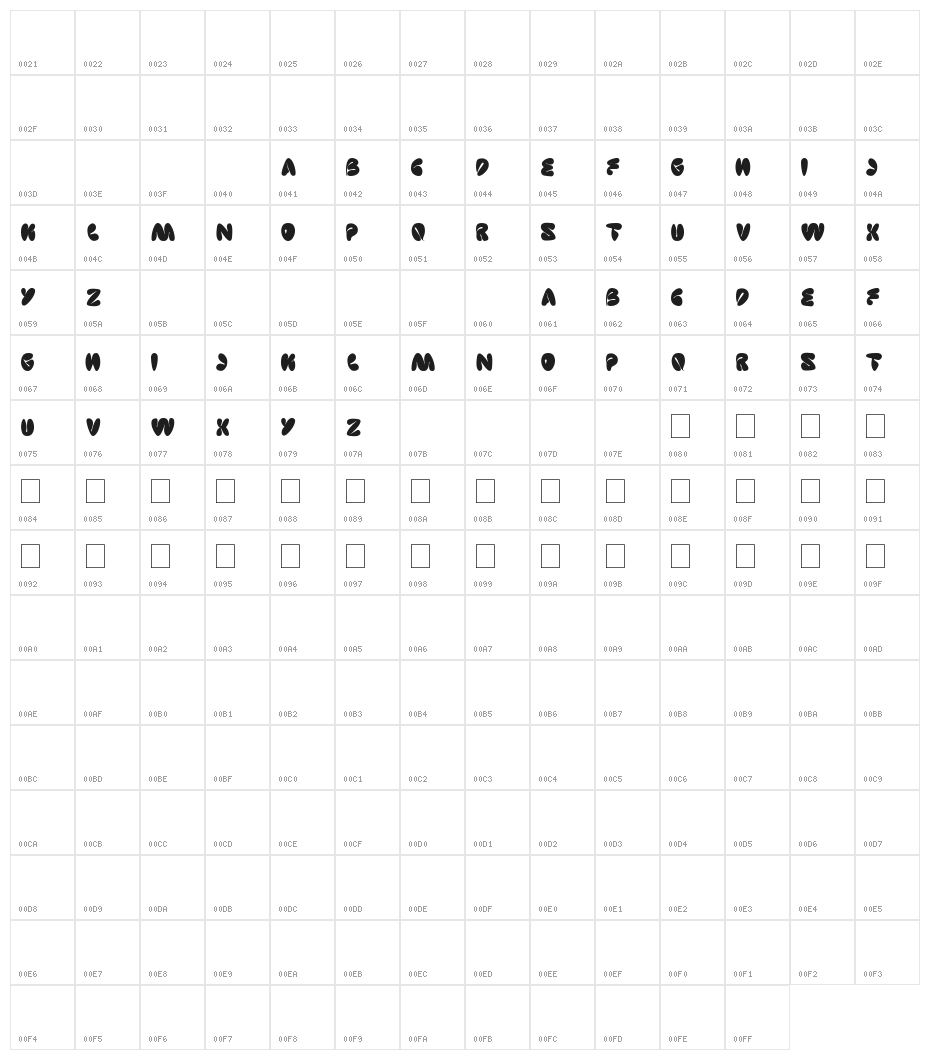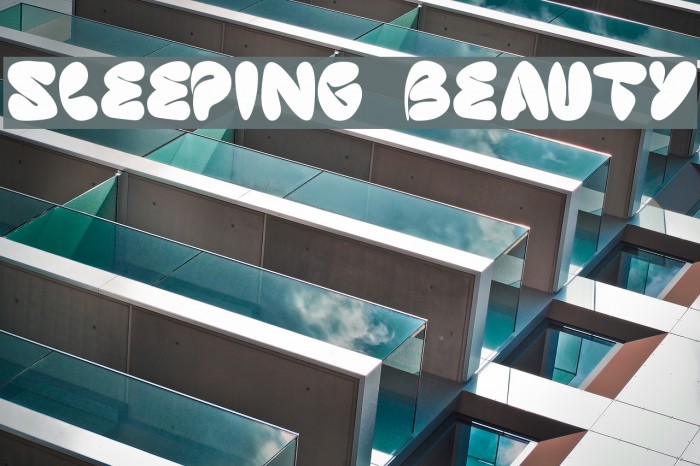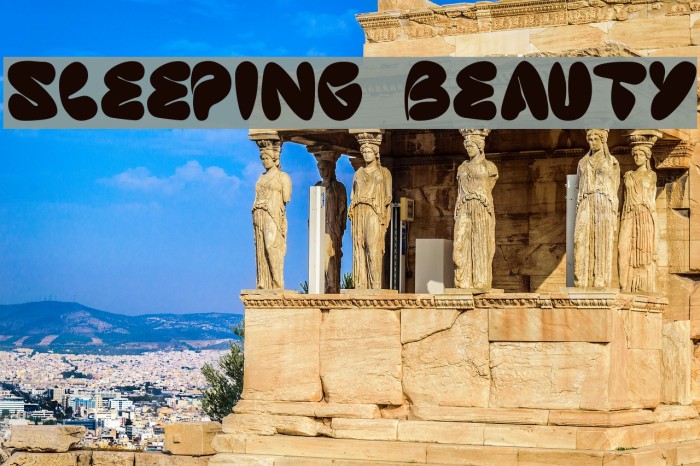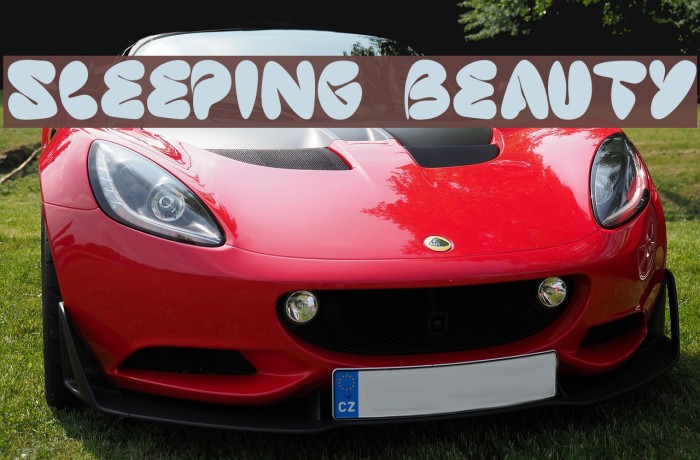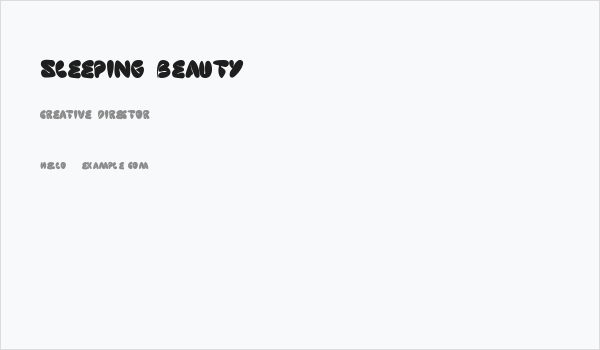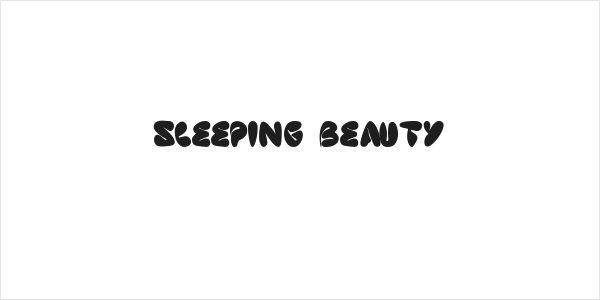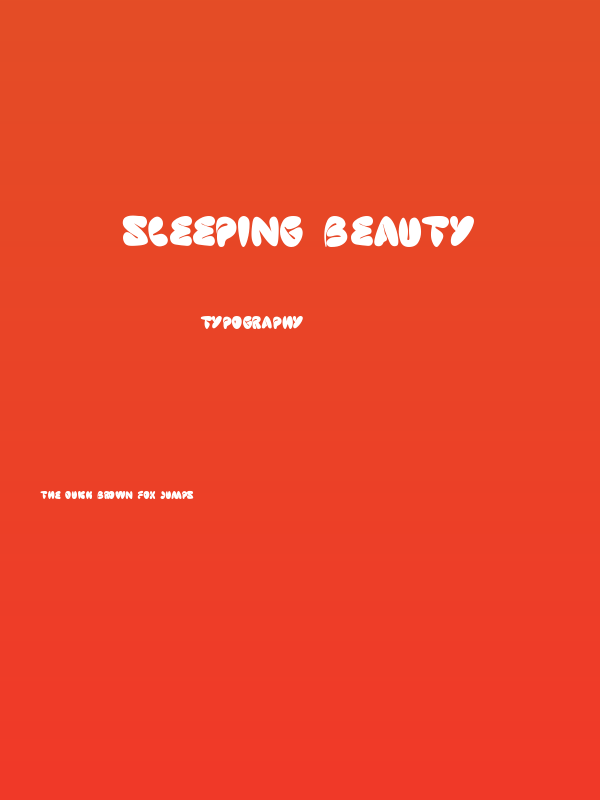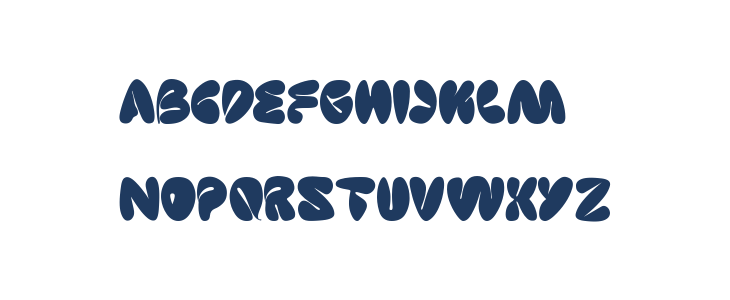
sleeping beauty Font
sleeping beauty Description
This font features a bold and playful design with thick, rounded strokes that give it a bubbly and whimsical appearance. The letters are characterized by their unique, almost abstract shapes, which create a sense of movement and energy. The overall look is both modern and fun, making it suitable for creative and informal projects. The font's distinct style is eye-catching and memorable, with each character maintaining a consistent weight and width throughout. The spacing between characters is tight, enhancing the cohesive and compact feel of the text.